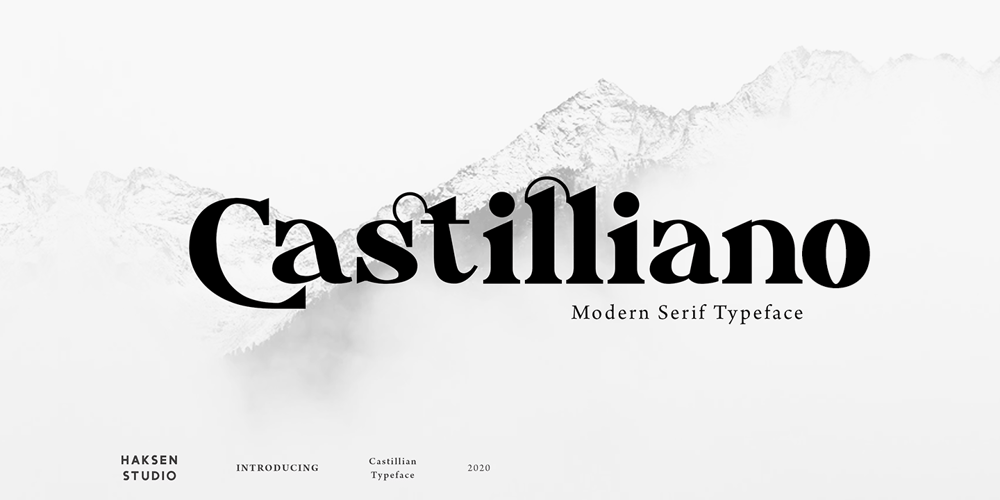
Castilliano
Castilliano font
Castilliano Font Family was designed by Sarwo Edhi Prayitno and published by Haksen. Castilliano contains 2 styles and family package options. Castillian is the family of modern serif style with Uppercase and Lowercase feel nice balanced. Provide alternates font in uppercase and lowercase variant style make the design letter looks incredible. Honestly it works perfectly for headlines, logos, posters, packaging, T-shirts and much more.Recommended to use in Adobe Illustrator or Adobe Photoshop with opentype feature.Ligatures feature is default setting in Adobe Illustrator or Adobe Photoshop in Uppercase character. So when you want not to use the ligatures.Open glyphs panel : In Adobe Photoshop choose tool Window >> Character and then please klick fi symbol In Adobe Illustrator choose tool Window >> Type >> Open Type and then please klick fi symbol How to access Alternates Character?Open glyphs panel : In Adobe Photoshop choose tool Window >> glyphs In Adobe Illustrator choose tool Type >> glyphs If you have questions, just send me a message and I’m glad to help.Have a great day,Haksen Std